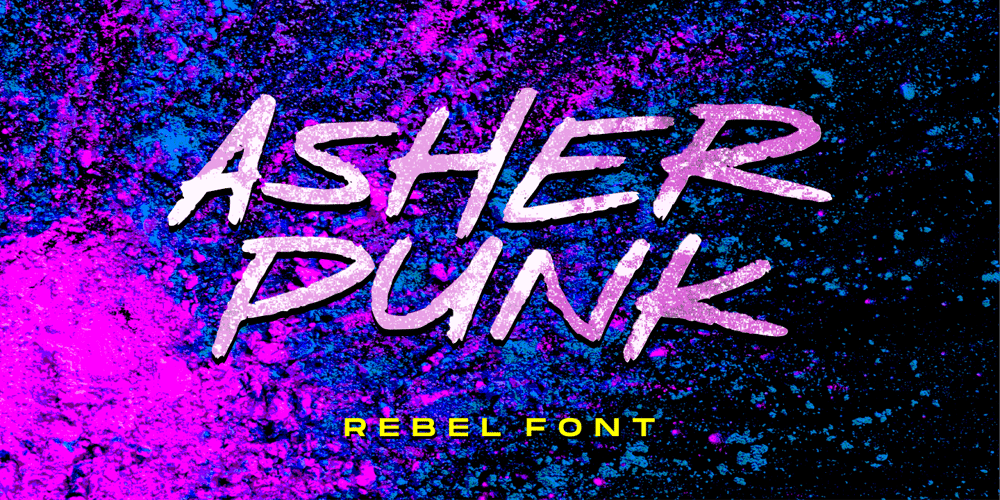
Asher Punk Font Family was designed by Fachrizal Yusuf and published by Allouse Studio. Asher Punk contains 1 styles and family package options. Proudly Presenting, Asher Punk a Rebel Handwritten Font.Asher Punk is perfect for any tittles, logo, product packaging, branding project, megazine, social media, wedding, or just used to express words above the background.Asher Punk also come with Multi-Lingual support.We highly recommend using a program that supports OpenType features and Glyphs panels like many of Adobe apps and Corel Draw, so you can see and access all Glyph variations.Enjoy the font, feel free to comment or feedback, send me PM or email. Thank You!